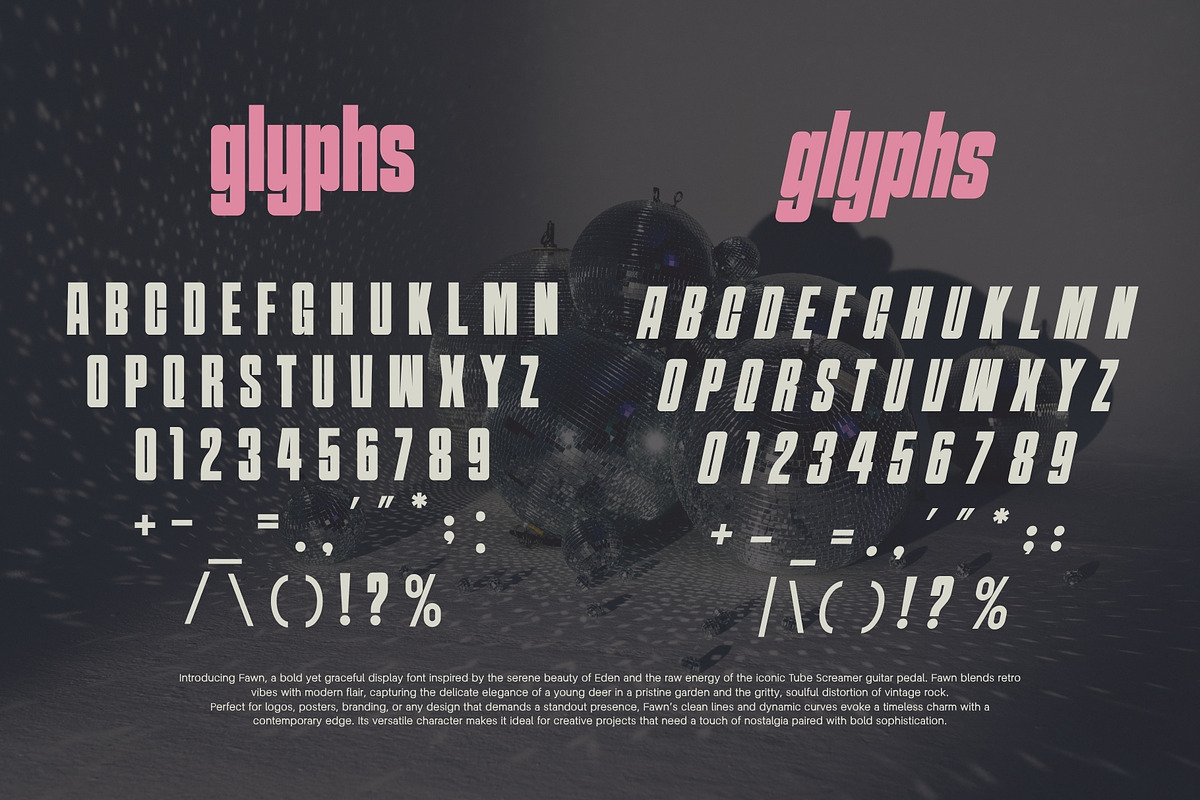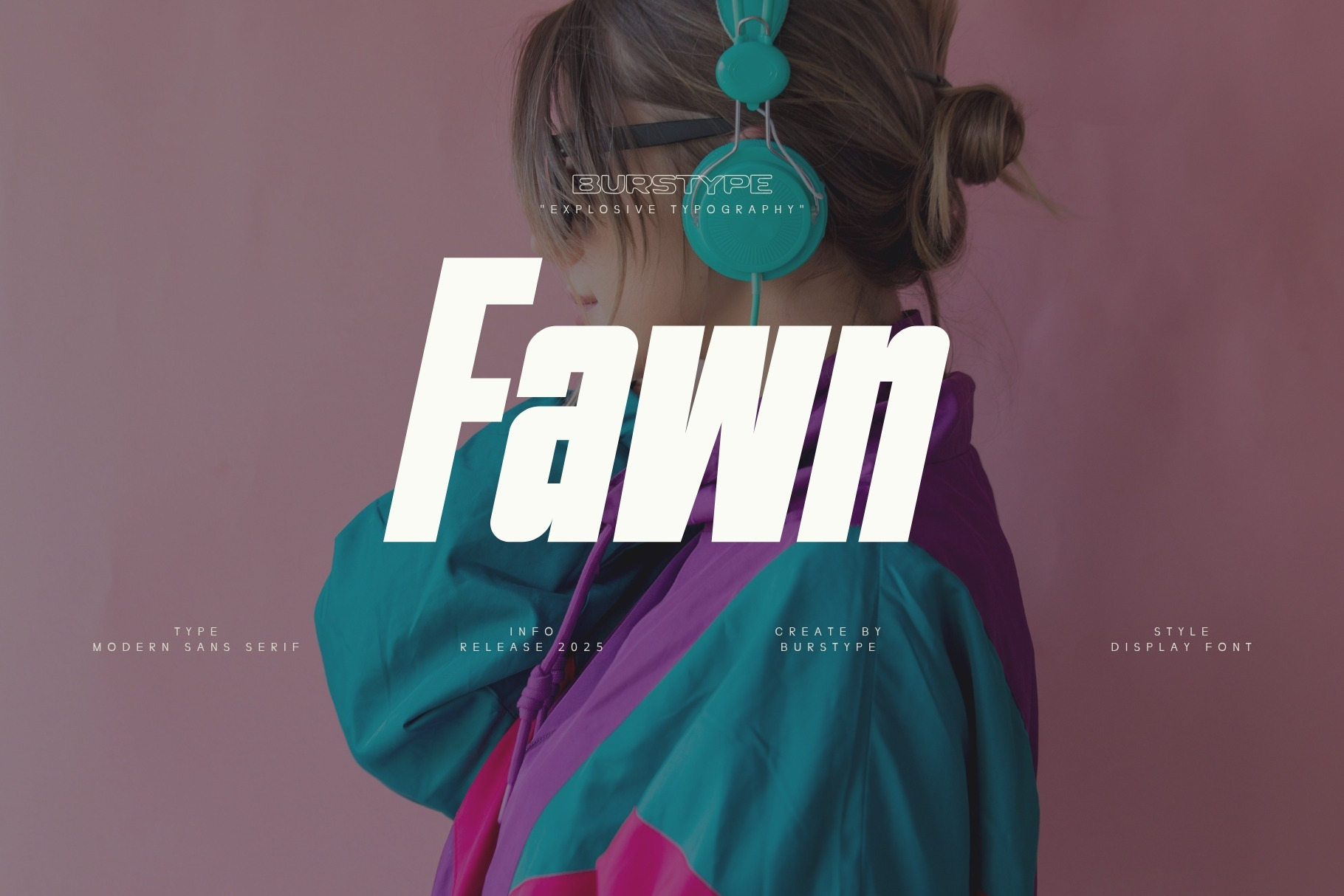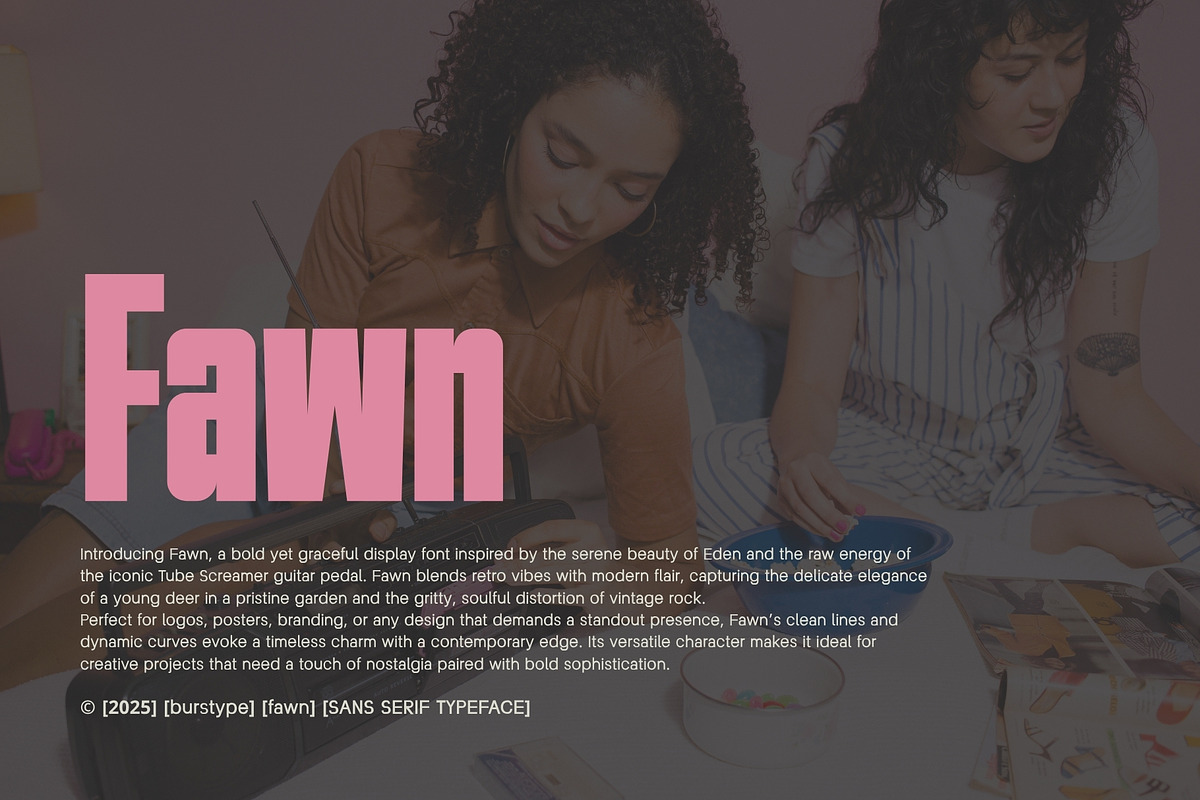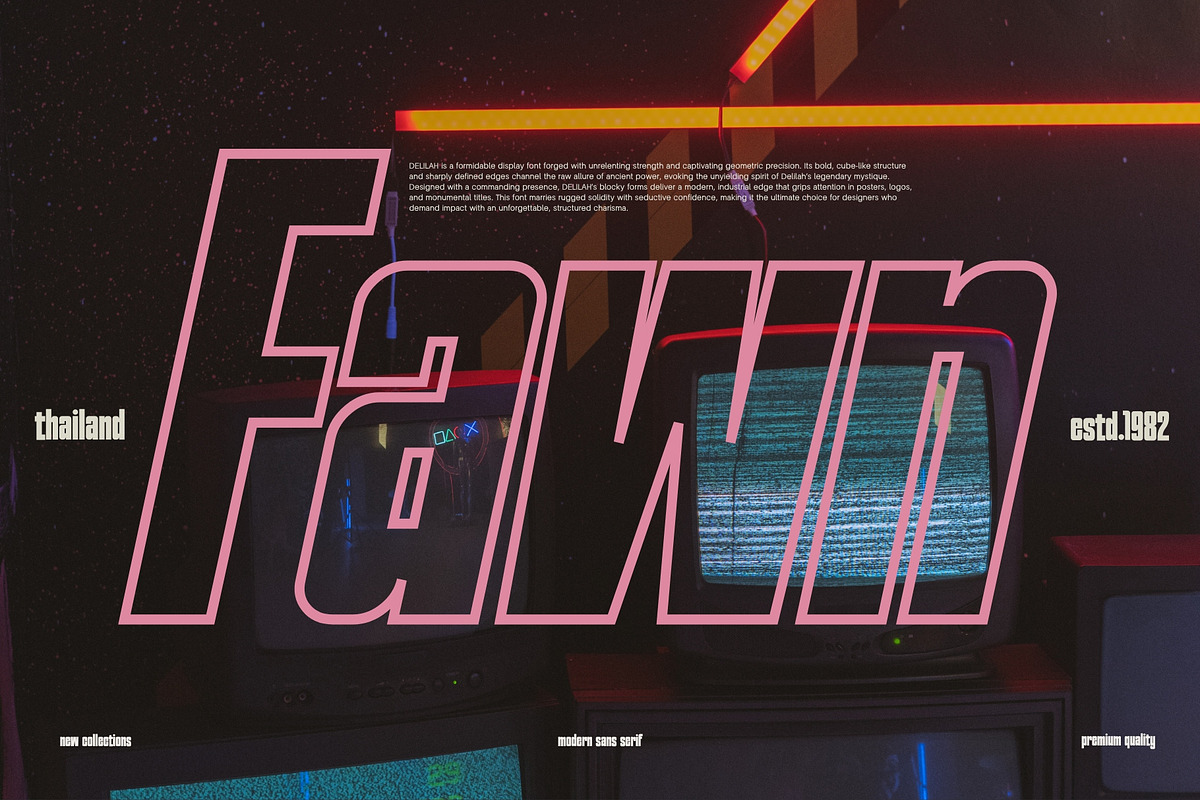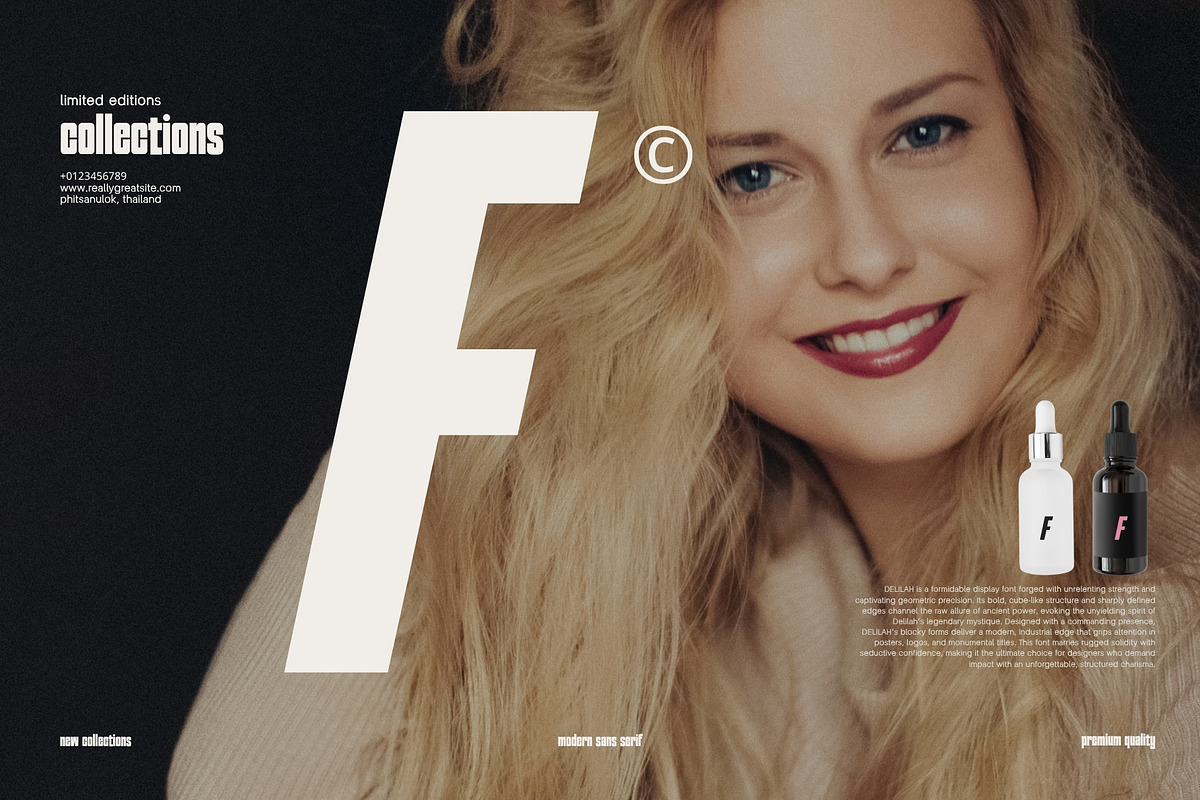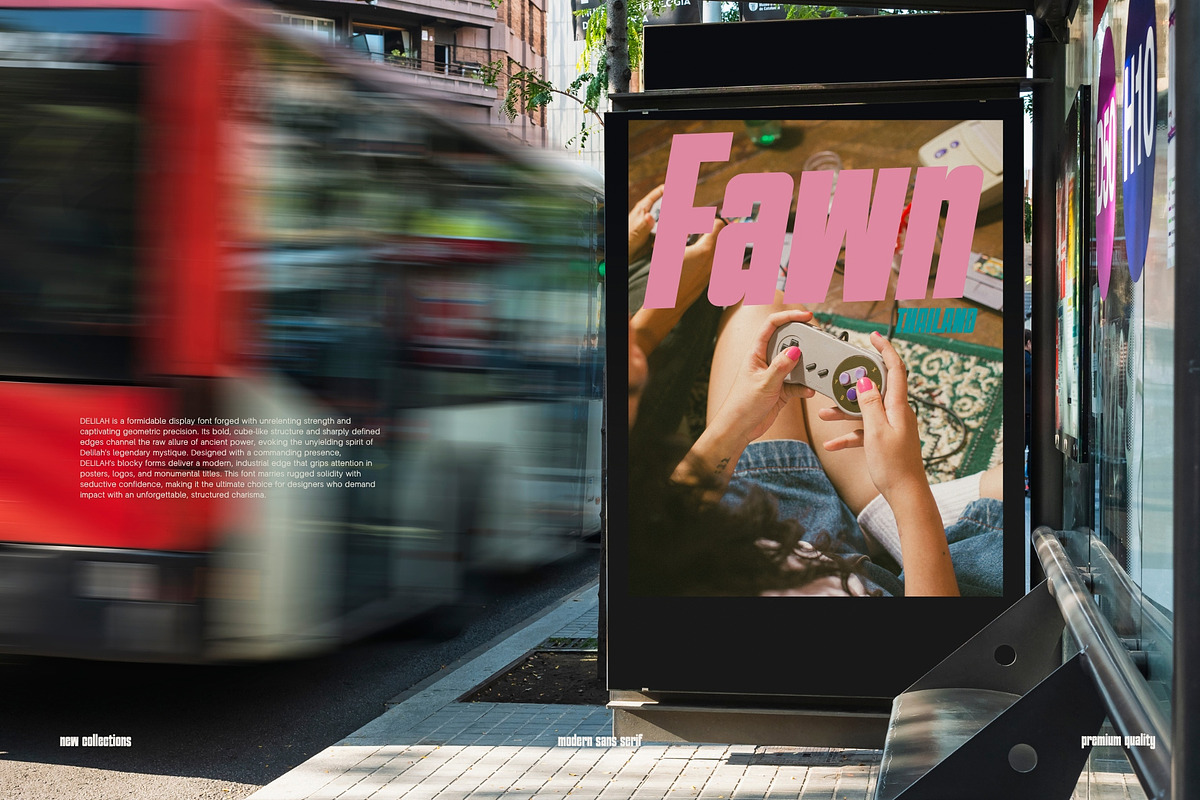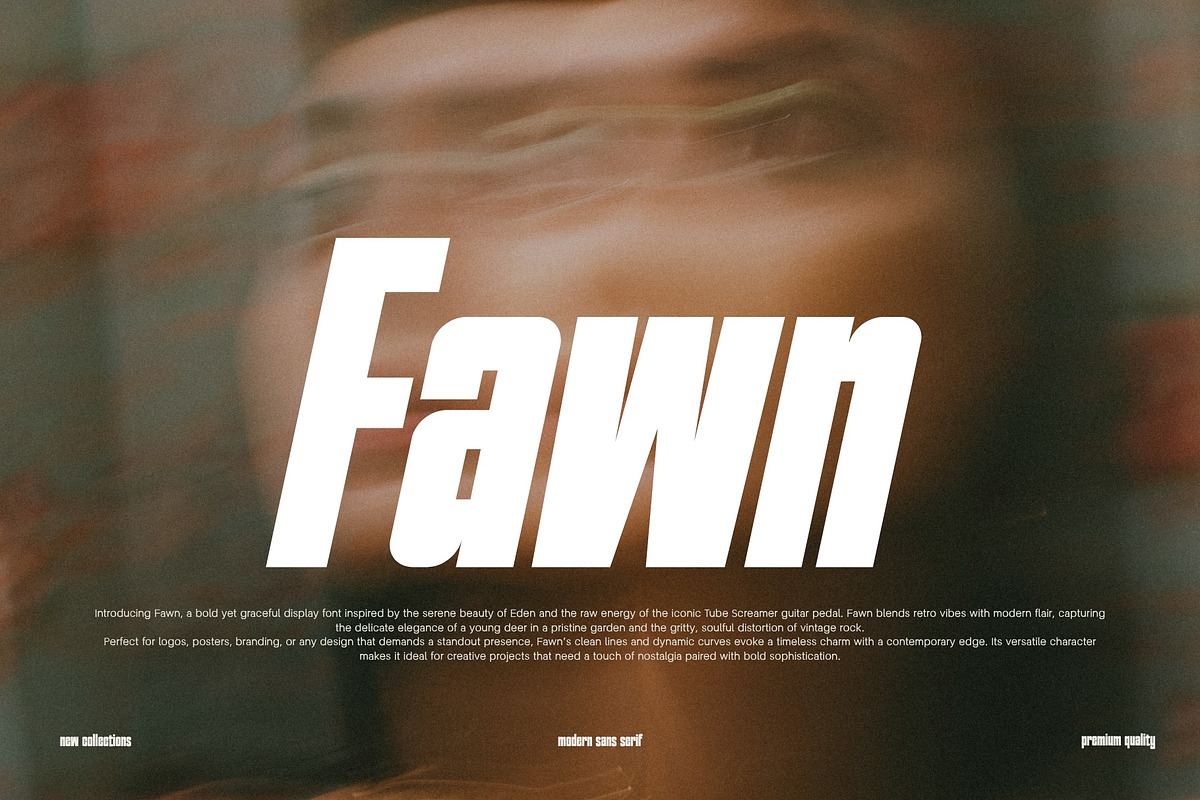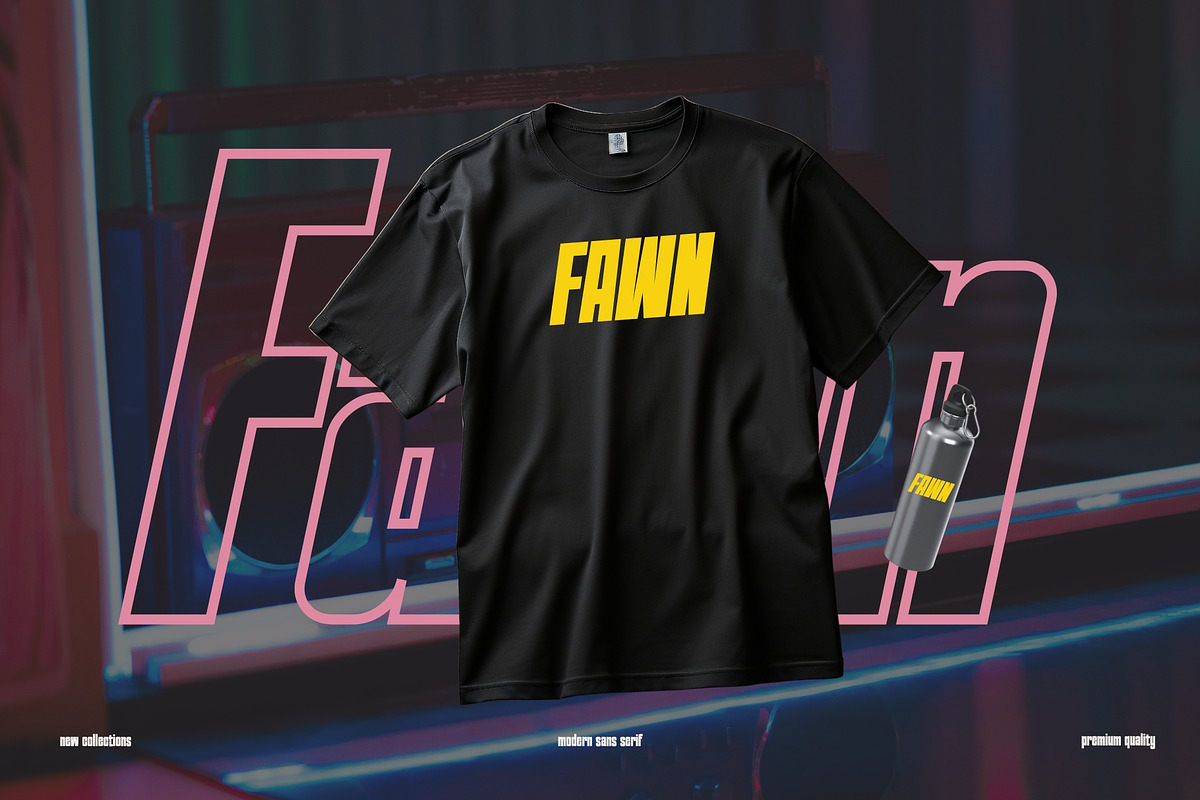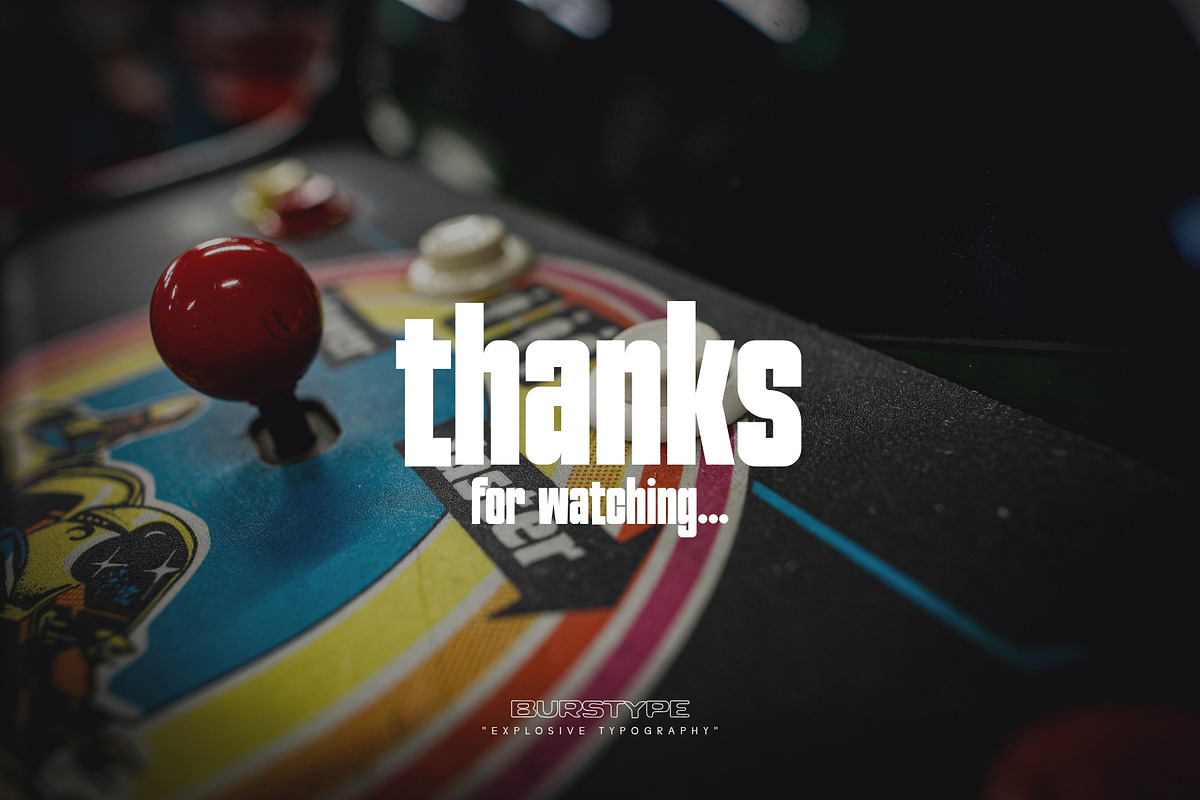
FAWN MODERN DISPLAY SAN SERIF FONT
Introducing Fawn, a bold yet graceful display font inspired by the serene beauty of Eden and the raw energy of the iconic Tube Screamer guitar pedal. Fawn blends retro vibes with modern flair, capturing the delicate elegance of a young deer in a pristine garden and the gritty, soulful distortion of vintage rock. Perfect for logos, posters, branding, or any design that demands a standout presence, Fawn’s clean lines and dynamic curves evoke a timeless charm with a contemporary edge. Its versatile character makes it ideal for creative projects that need a touch of nostalgia paired with bold sophistication.